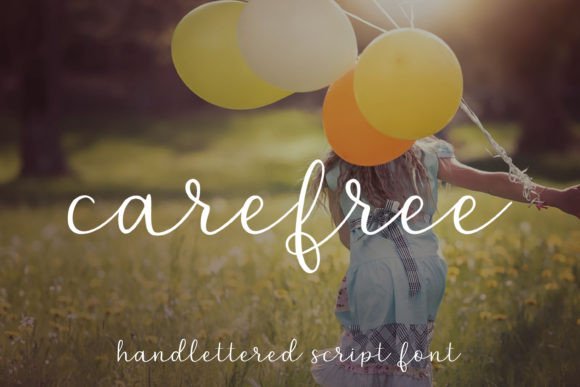
Introducing Carefree Font: The Embodiment of Effortless Style
In the world of typography, fonts play a crucial role in conveying the tone and personality of a brand or design. For those seeking a modern and casual script font that exudes relaxed elegance, look no further than Carefree Font. This beautiful typeface is designed to capture the essence of effortless style, making it perfect for a wide range of creative projects.
The Characteristics of Carefree Font
Carefree Font is a script font that boasts smooth and flowing letterforms, which give it a unique and distinctive look. Its casual and modern design makes it an excellent choice for designers and crafters looking to add a touch of laid-back sophistication to their work. The font’s elegant and refined appearance ensures that it can be used in various contexts, from branding and social media graphics to personal projects and crafts.
Uses of Carefree Font
One of the key benefits of Carefree Font is its versatility. Its carefree spirit and fashionable vibe make it an excellent choice for a wide range of applications, including:
- Branding: Use Carefree Font to create a unique and memorable brand identity that reflects your company’s personality and values.
- Social Media Graphics: Add a touch of elegance and sophistication to your social media graphics, including Instagram posts, Facebook covers, and Twitter headers.
- Personal Projects: Whether you’re working on a personal blog, a crafting project, or a DIY endeavor, Carefree Font is the perfect choice for adding a touch of style and personality.
Why Choose Carefree Font?
So, why should you choose Carefree Font for your next project? Here are just a few reasons:
- Unique and Memorable: Carefree Font’s distinctive design ensures that your work will stand out from the crowd and leave a lasting impression.
- Easy to Read: Despite its elegant and refined appearance, Carefree Font is easy to read, making it perfect for body text and captions.
- Highly Versatile: Carefree Font can be used in a wide range of contexts, from formal and professional to casual and personal.
Tips for Using Carefree Font
To get the most out of Carefree Font, here are a few tips to keep in mind:
- Pair it with Other Fonts: Experiment with pairing Carefree Font with other fonts to create a unique and visually appealing combination.
- Use it for Headings and Titles: Carefree Font is perfect for headings and titles, where its elegant and refined appearance can really shine.
- Experiment with Colors and Textures: Don’t be afraid to experiment with different colors and textures to add depth and interest to your design.
In conclusion, Carefree Font is a beautiful and versatile script font that captures the essence of effortless style. Its smooth and flowing letterforms exude a sense of relaxed elegance, making it perfect for a wide range of creative projects. Whether you’re a designer, crafter, or simply someone looking to add a touch of personality to your work, Carefree Font is an excellent choice. So why not give it a try and let your creativity shine?
Key Features of Carefree Font
| Font Style | Script Font |
| Font Weight | Light to Bold |
| Language Support | English and other Latin-based languages |